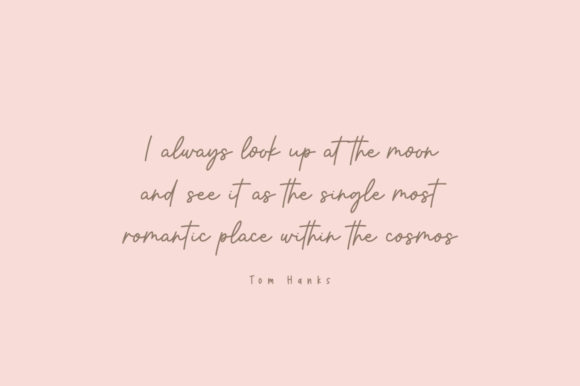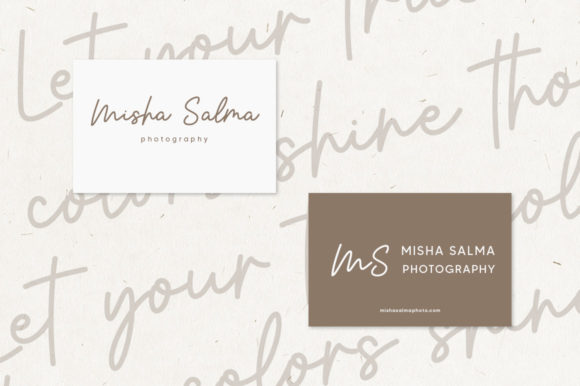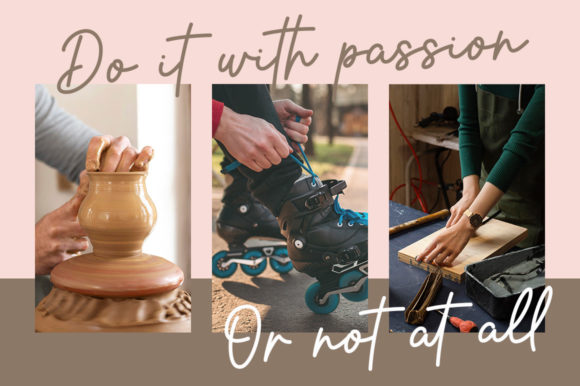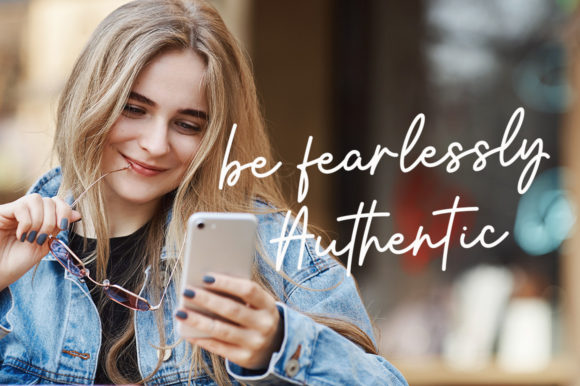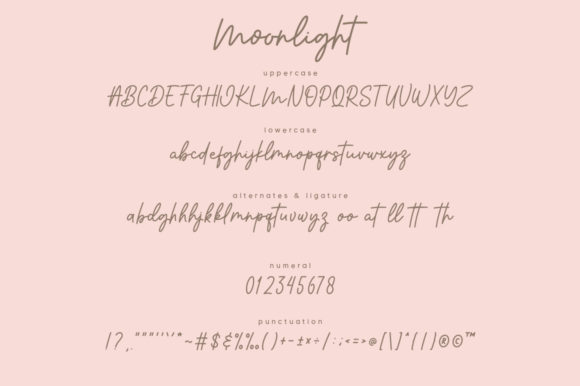
Moonlight Font
Moonlight is a beautiful and delicate handwritten font that exudes charm and elegance. With its dainty and flowing style, this font is perfect for creating romantic and personalized designs, especially for occasions like weddings, invitations, and cards.
The graceful letterforms of Moonlight give it a soft and whimsical touch, adding a sense of joy and sweetness to your projects. Whether you’re designing wedding invitations, love letters, or special occasion cards, this font will bring a touch of romance and create a heartfelt connection with your audience.
Moonlight is particularly well-suited for writing wedding invitations. Its elegant and sophisticated appearance adds a touch of refinement to your invitation suite. The flowing nature of the font creates a sense of movement and grace, enhancing the overall aesthetic of the design. Your guests will be captivated by the beauty and personal touch of your invitations.
In addition to wedding invitations, Moonlight can also be used for a wide range of designs that require a romantic and personalized touch. It’s perfect for creating greeting cards, love notes, quotes, and any other project where you want to evoke a sense of warmth and affection.
The versatility of Moonlight allows it to adapt to various design styles and themes. Whether you’re going for a vintage-inspired look, a modern and minimalist design, or something in between, Moonlight adds a touch of elegance and charm. Its legibility and readability ensure that your message comes across clearly and beautifully.
Moonlight’s flowing and delicate nature is further enhanced by its dainty swashes and ligatures. These additional decorative elements provide you with even more creative possibilities to embellish your designs. The font’s PUA encoding makes it easy to access these special characters and create truly unique and personalized compositions.
Overall, Moonlight is a dainty and flowing handwritten font that brings a sense of sweetness and joy to your designs. Its romantic and personalized touch makes it ideal for wedding invitations, cards, and any other project that requires an intimate and heartfelt feel. Let Moonlight illuminate your designs and create memorable experiences for your audience.